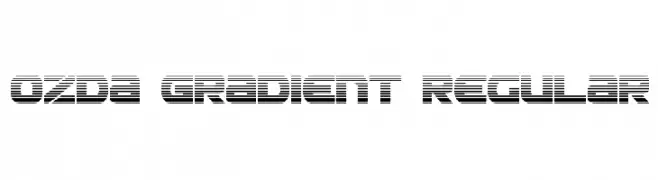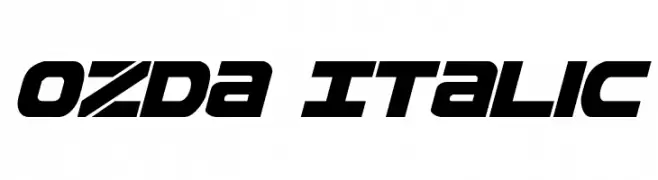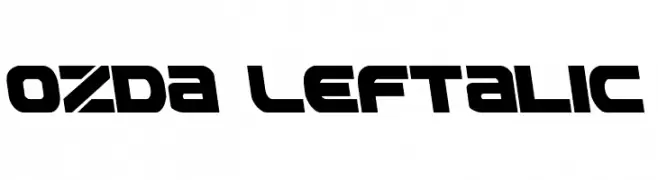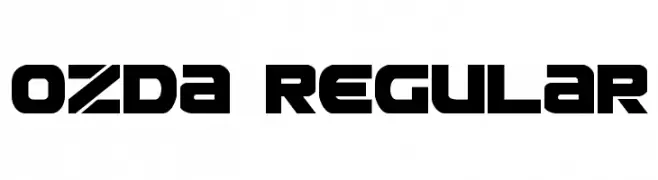
A bold, futuristic font with a gradient line effect.
A bold, italicized font with a futuristic and dynamic style.
A bold, left-leaning futuristic font with geometric shapes and sharp angles.
A bold, geometric font with a futuristic and cohesive design.
A bold, 3D italic font with a modern, dynamic style.
A bold, 3D outlined font with sharp, angular edges and a modern, futuristic style.
A bold, angular font with sharp edges and a strong geometric style.
A bold, italicized font with sharp angles and high contrast, perfect for dynamic designs.
A bold, angular, and condensed font ideal for striking headlines.
A bold, condensed, and italic font with sharp, angular edges and a modern, dynamic style.